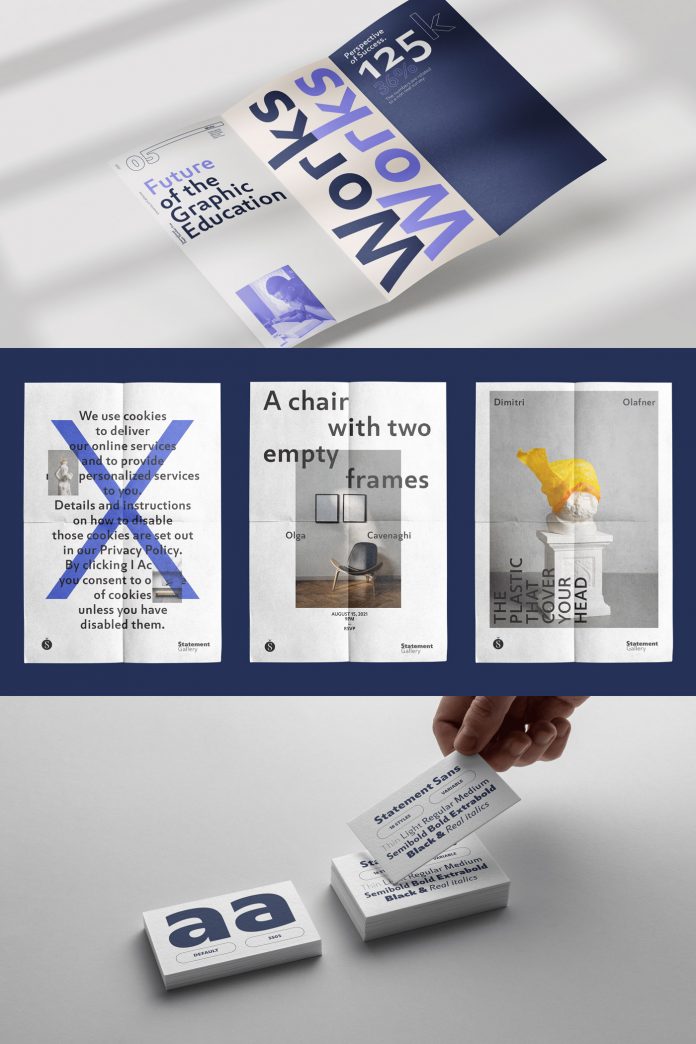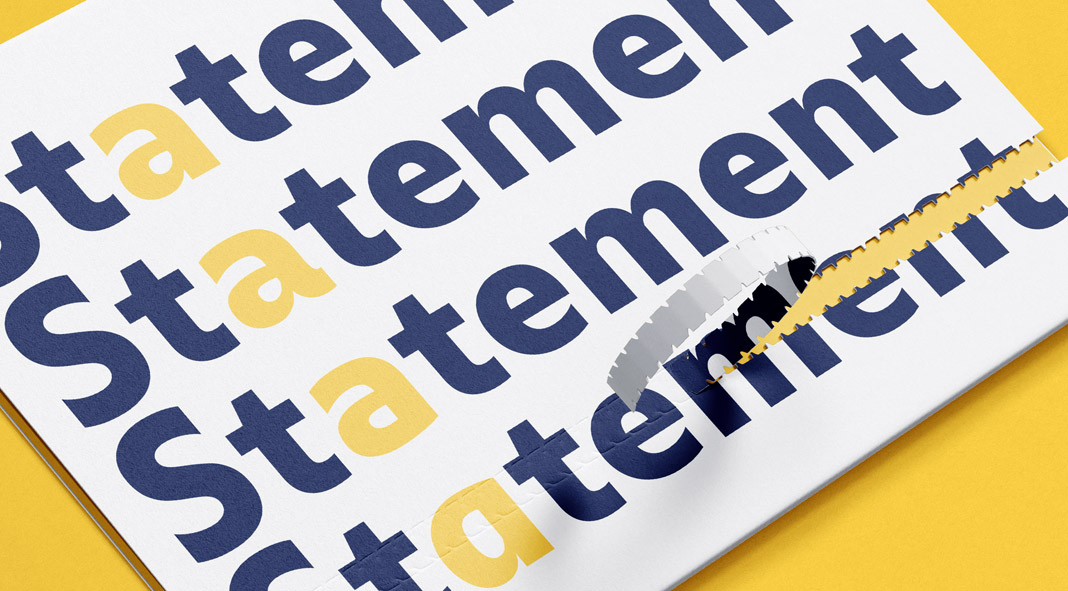
Statement Sans, a sans serif font family with nineteen styles from foundry Sudtipos.
Take a look at Statement Sans, a versatile sans serif font family created and published by the Sudtipos. This neo-humanistic font is based on a modern Grotesk with industrial influences. It has been designed for use in UX and UI projects as well as corporative interfaces or editorial web and print layouts. The Statement Sans font family is equipped with 9 weights plus matching real italics. It also comes with extended Latin language support, classic and old-style figures as well as plenty of stylistic alternates. In addition, Statement Sans includes a variable font to give you all the typographic freedom you need.